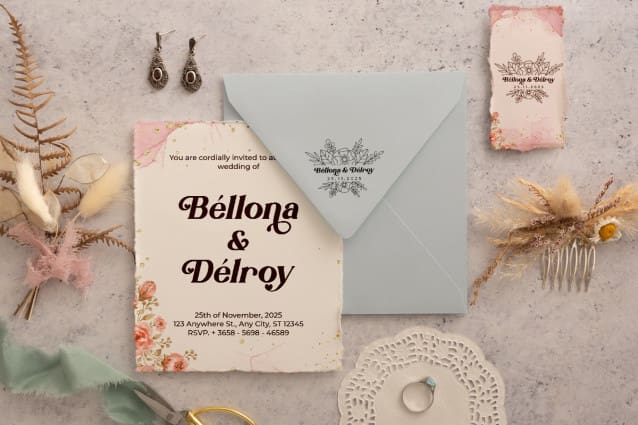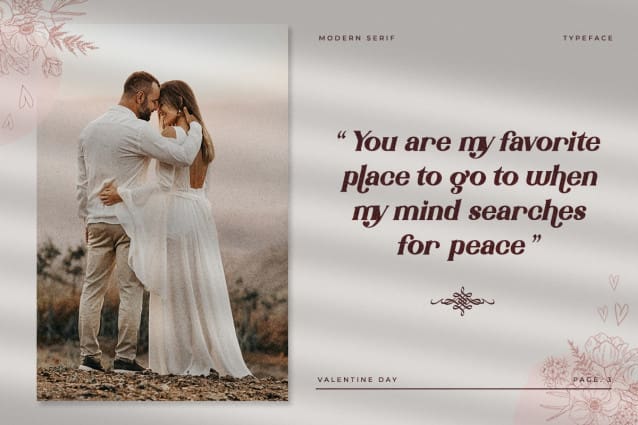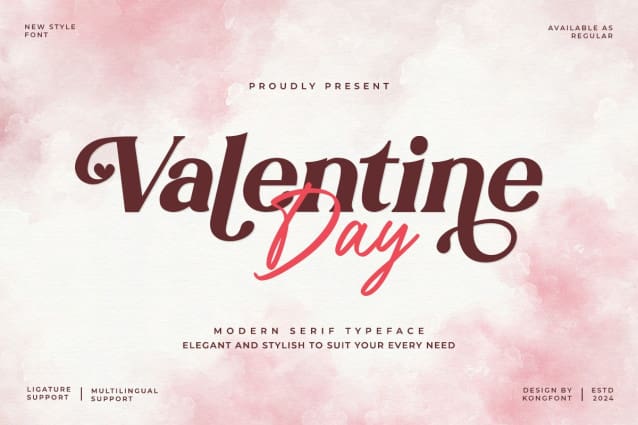
Valentine Day Font
Valentine Day Font – Modern Valentine Font is part of our Serif font family. This font is an elegant typeface that exudes a simple but romantic feel. This font has lots of beautiful flows and curves in its design.
Compared to other font types, Serif typefaces have more limited uses. Valentine Day Font – Modern Valentine Font is the best Valentine font to use for things like Valentine’s celebrations, banquet decorations, souvenirs, and many more. You can use this typeface for printing invitations, love letters, posters, and banners.
A serif typeface like this is one of our legible fonts that can use in romantic-themed movies. Movie titles with the theme of love story struggles are the best choice for Valentine’s Day Modern Valentine Font.
Happy Valentine Modern Script Font doesn’t need many decoration or extra work to look good on print and non-printing materials. All you need is the skill to understand what combinations of good fonts and different typefaces work together. You can bring out the best in our fonts with matching colors and themes.
Avoid using the Modern Valentine’s Day Font in long texts with a lot of dense information for your readers because our Modern Valentine’s Day Font may be one of the best looking Serif fonts but may not be the best font to choose if you want a more formal typeface for projects.